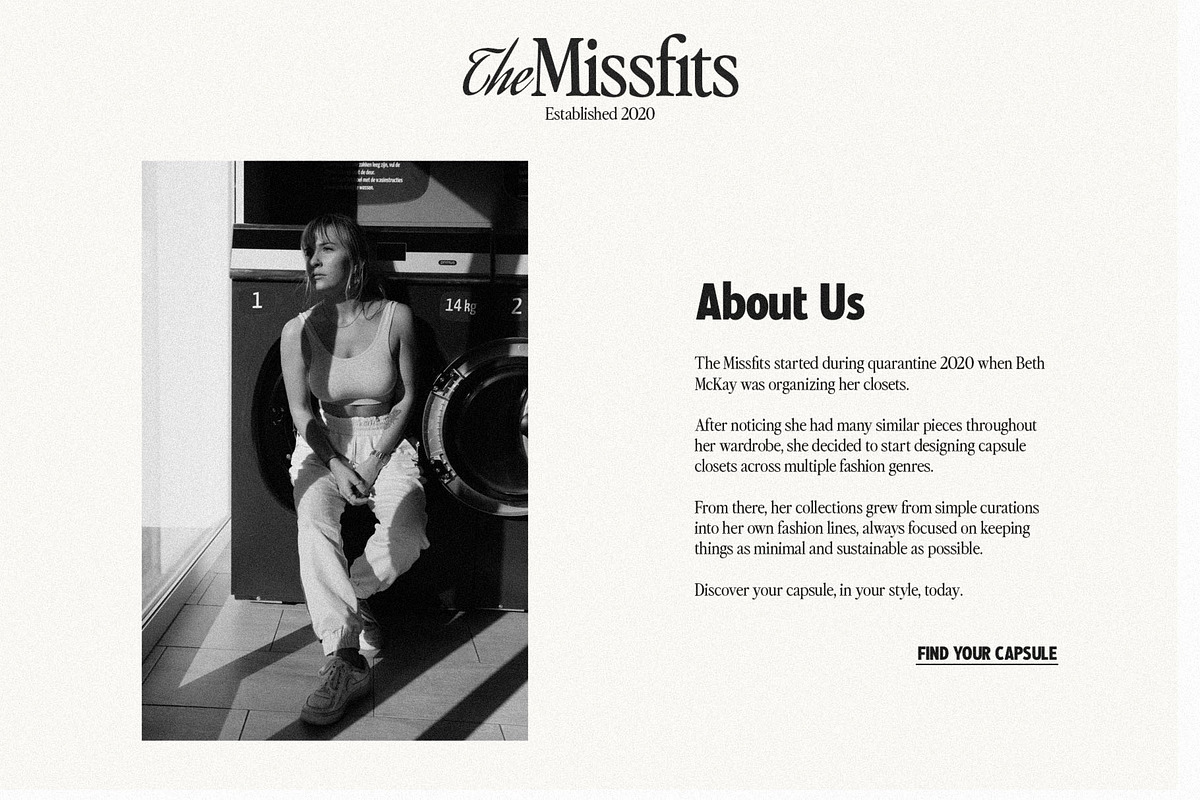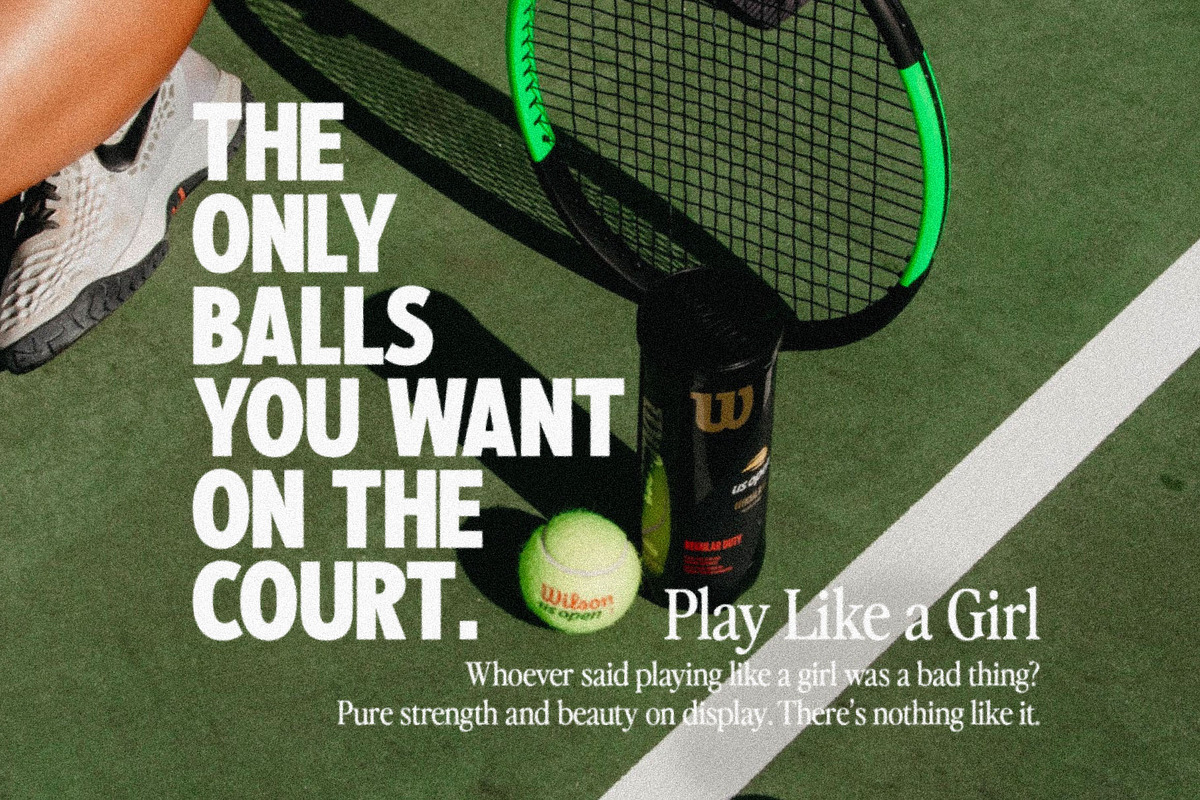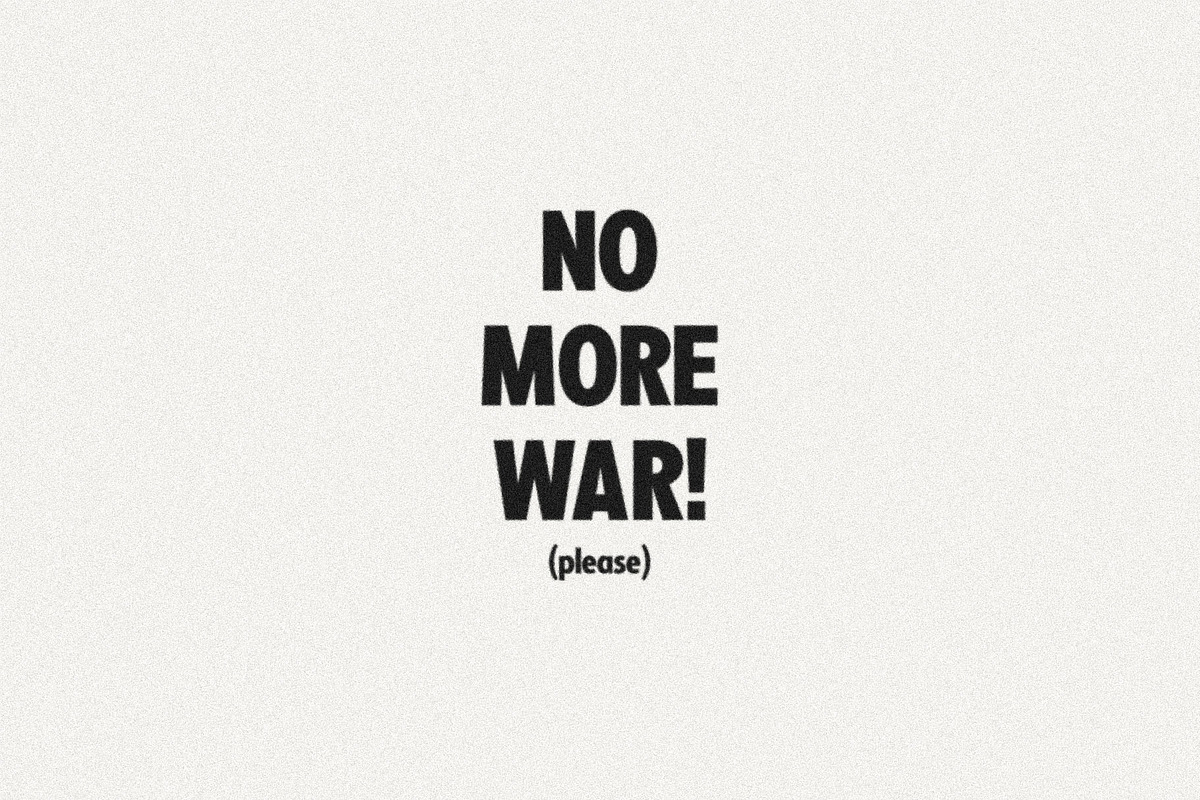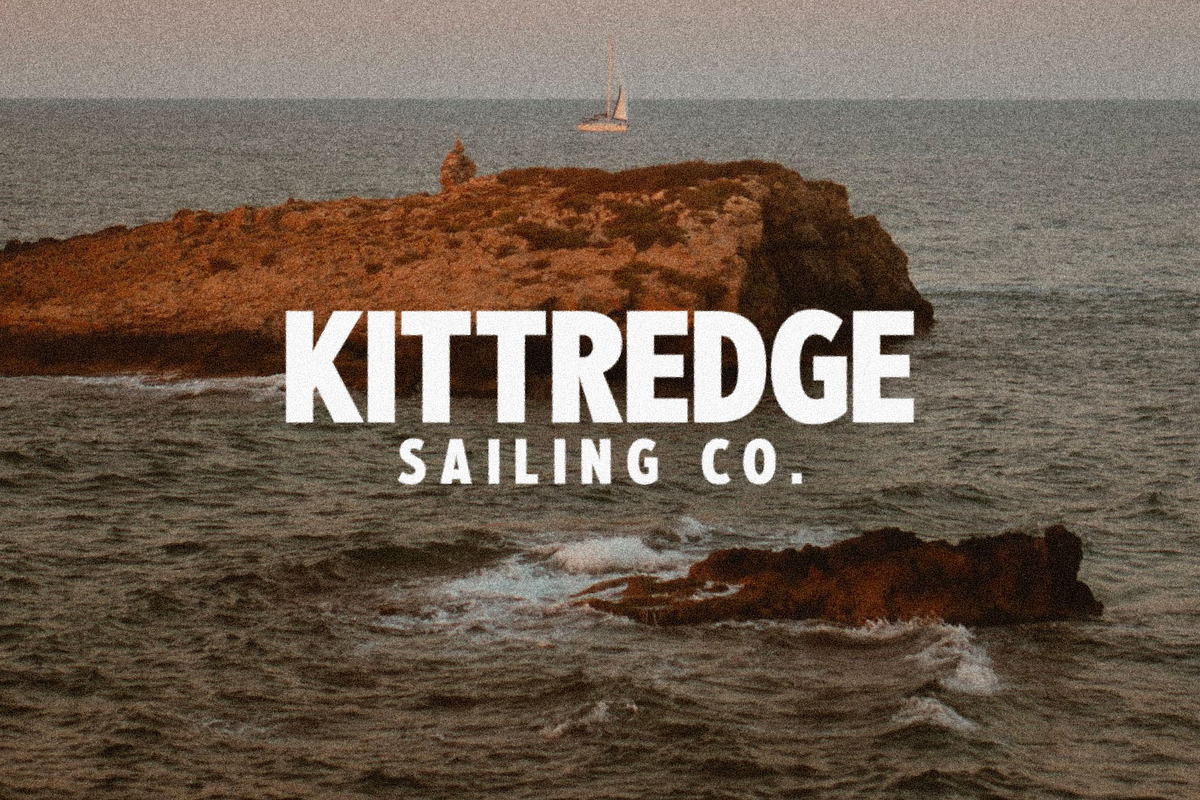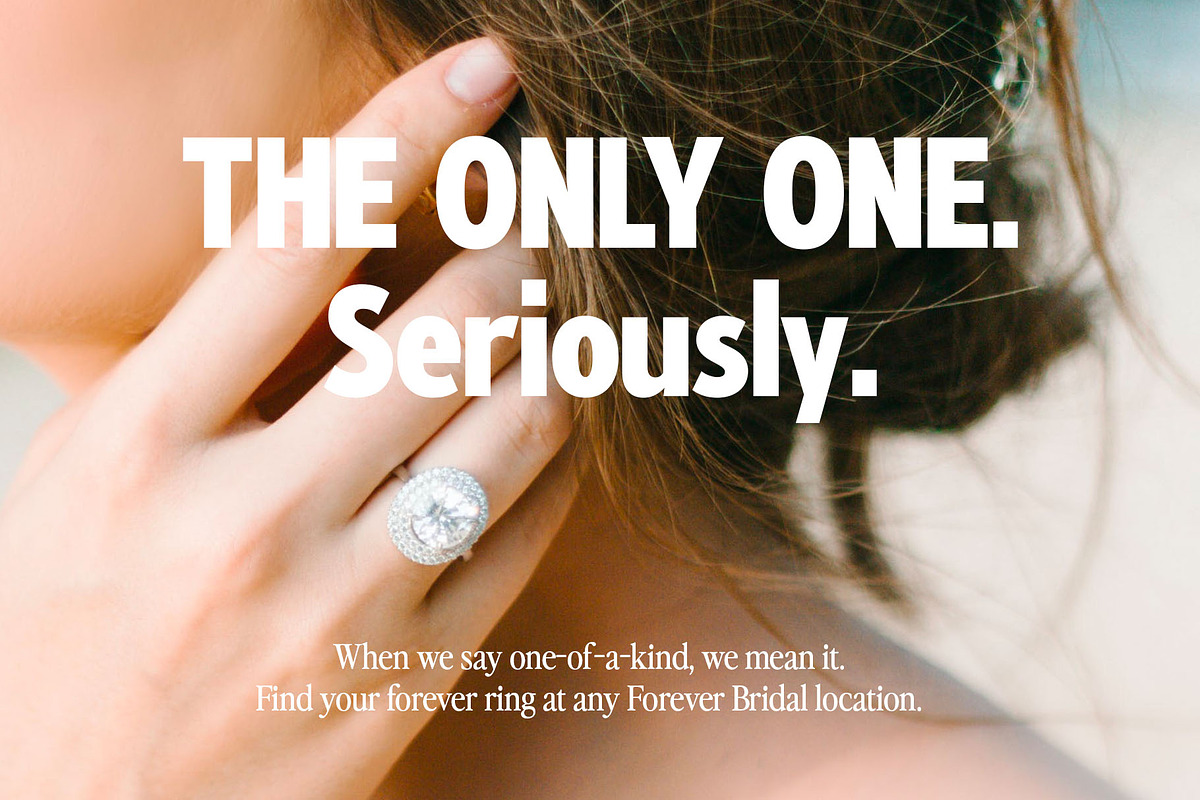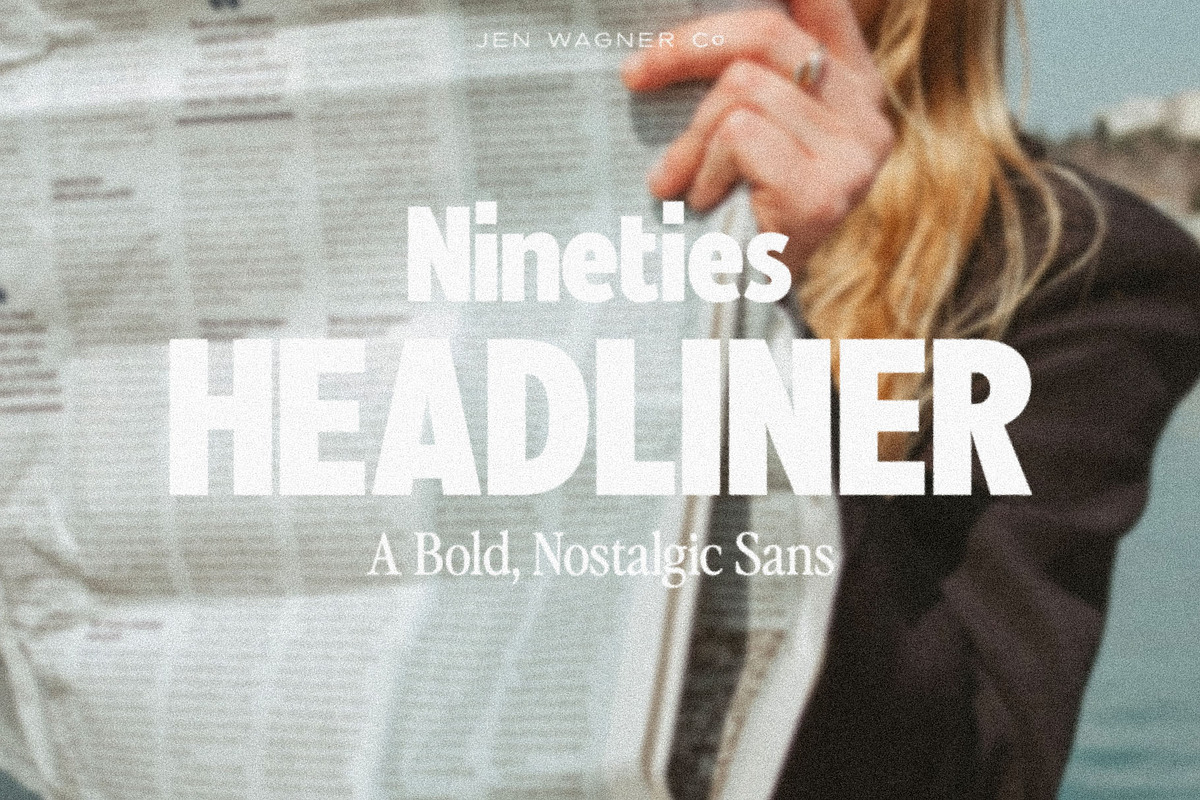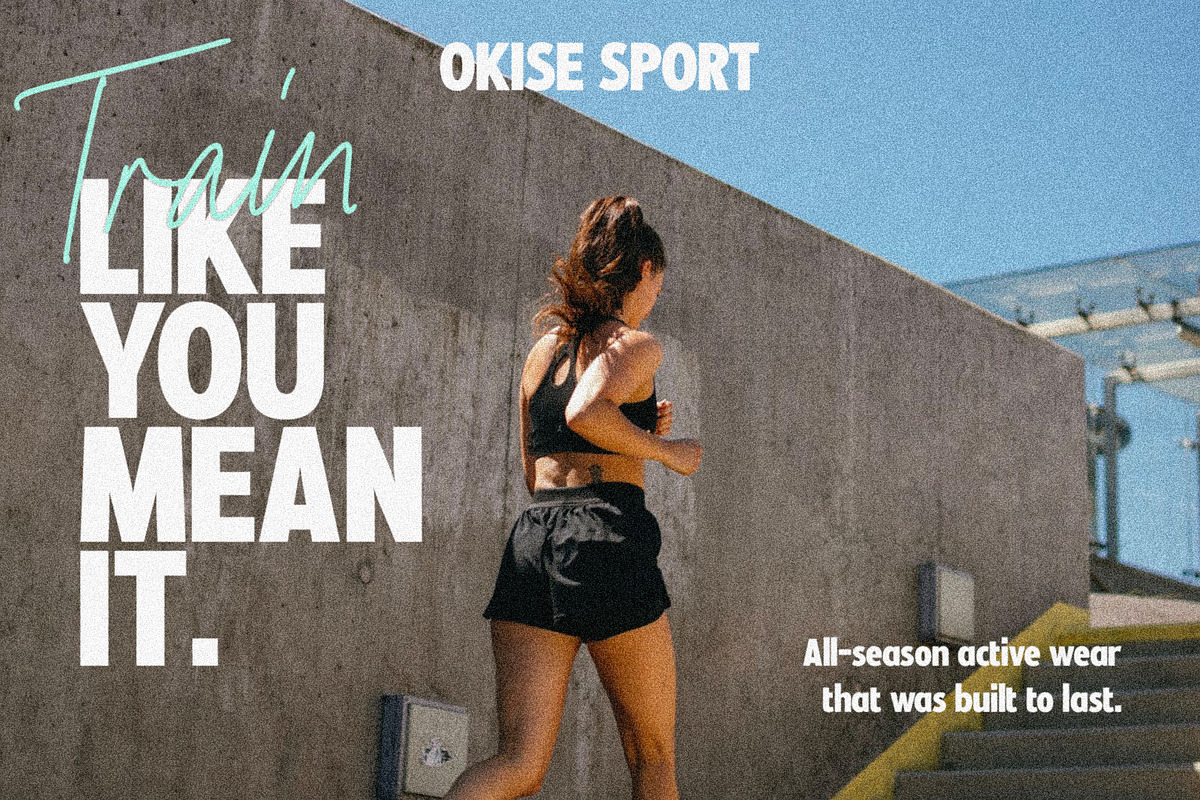
Nineties Headliner | Nostalgic Sans
Say hello to Nineties Headliner — a bold, nostalgic sans inspired by text-focused magazine ads of the 80s and 90s.
As the classic, text-focused design of the 80s & 90s is making a comeback, I wanted to create the perfect sans for you to recreate the look!
With both upper and lowercase, Nineties Headliner works beautifully for logos or as primary header text, especially at large scale.
It's gorgeous used on its own, and was also literally designed to accompany "Perfectly Nineties" (you'll see them paired together frequently in the images).
Along with the font, you'll also get two Photoshop Actions as a bonus that create a vintage magazine print look with the click of a button (see the before/after on the 8th image, 1993) :)